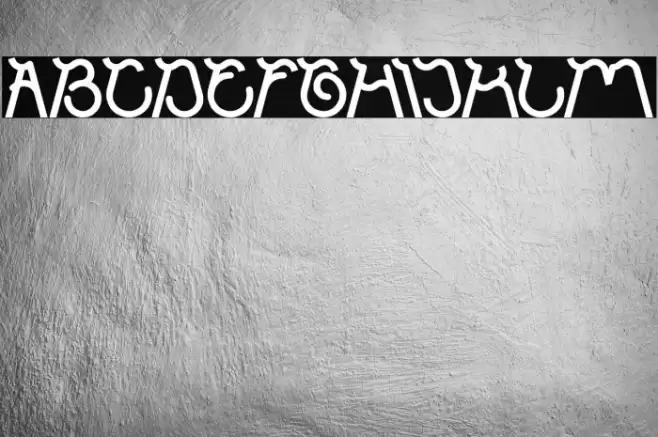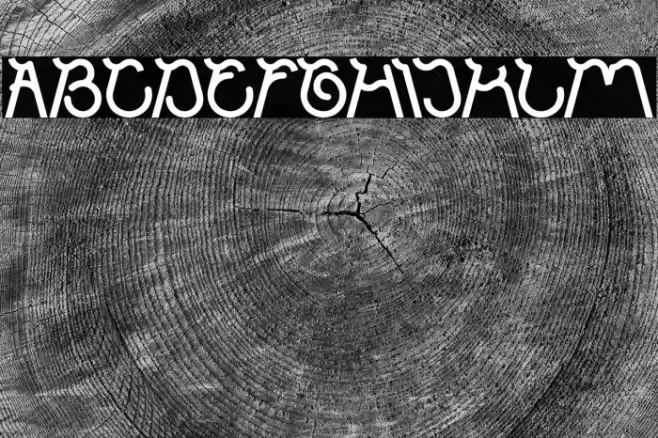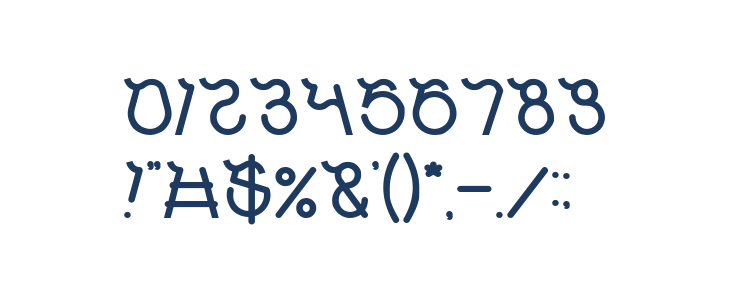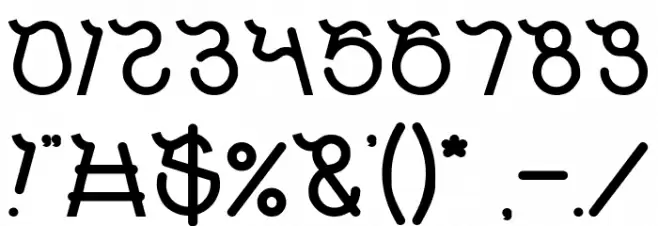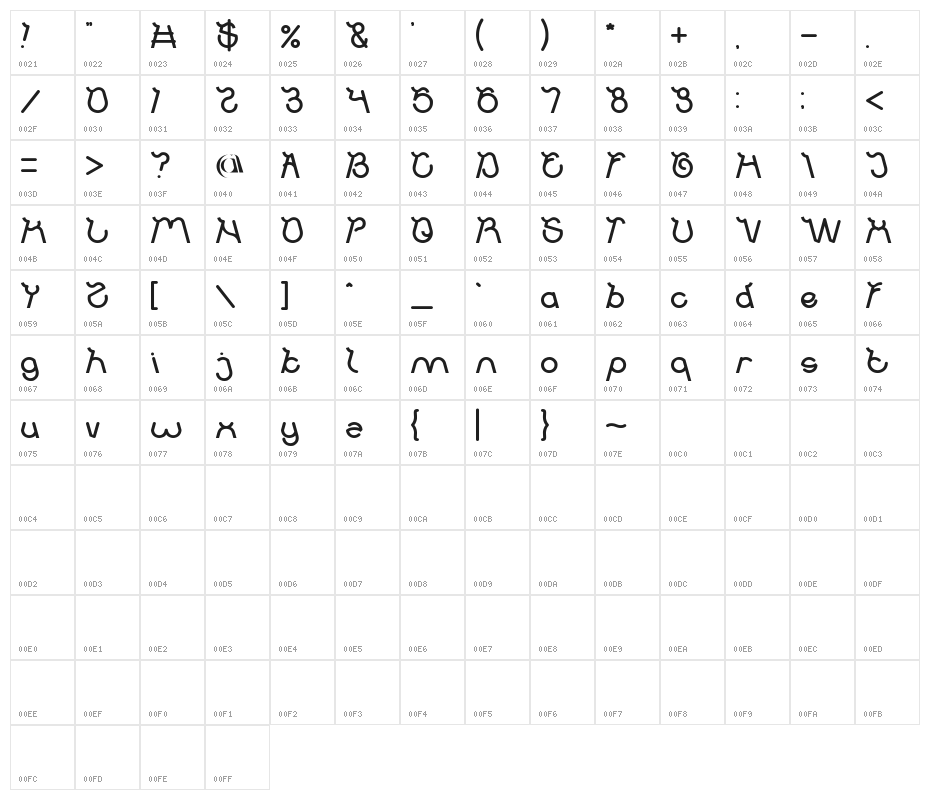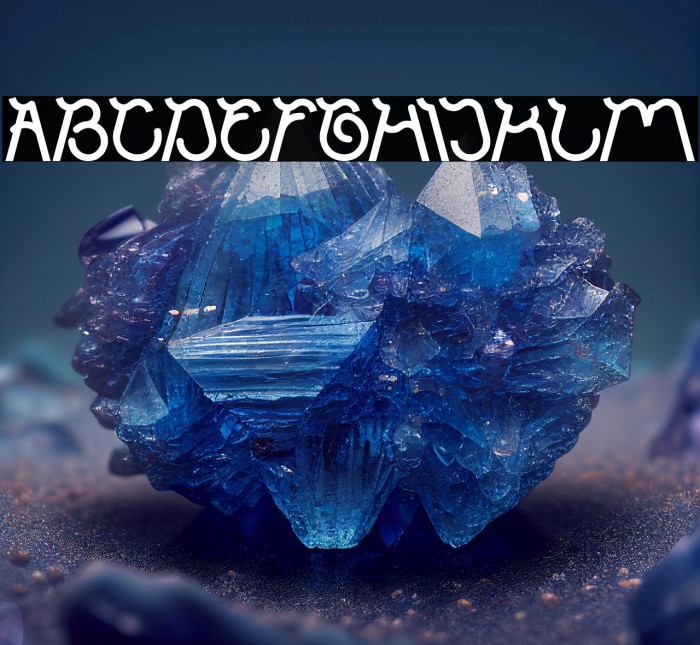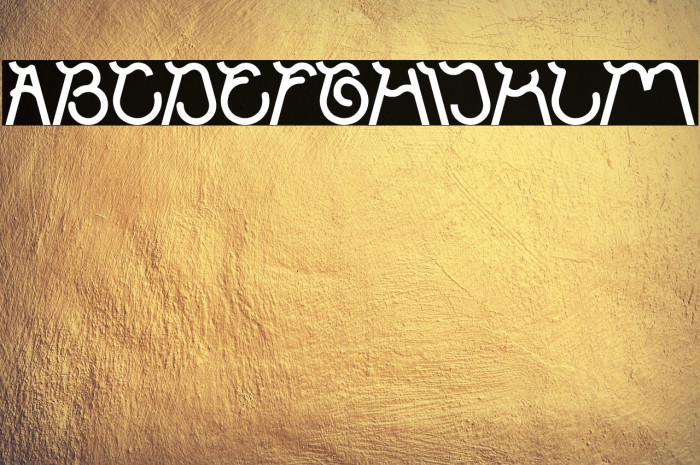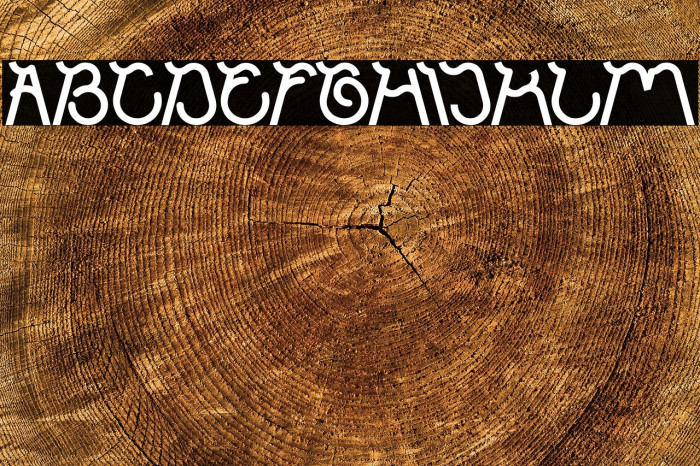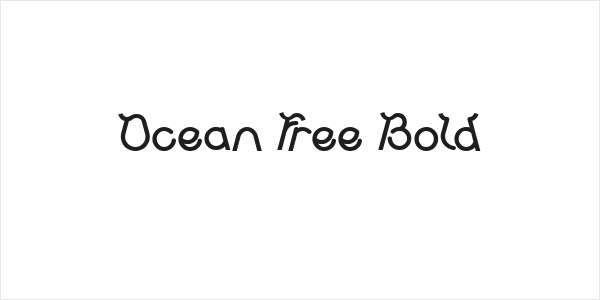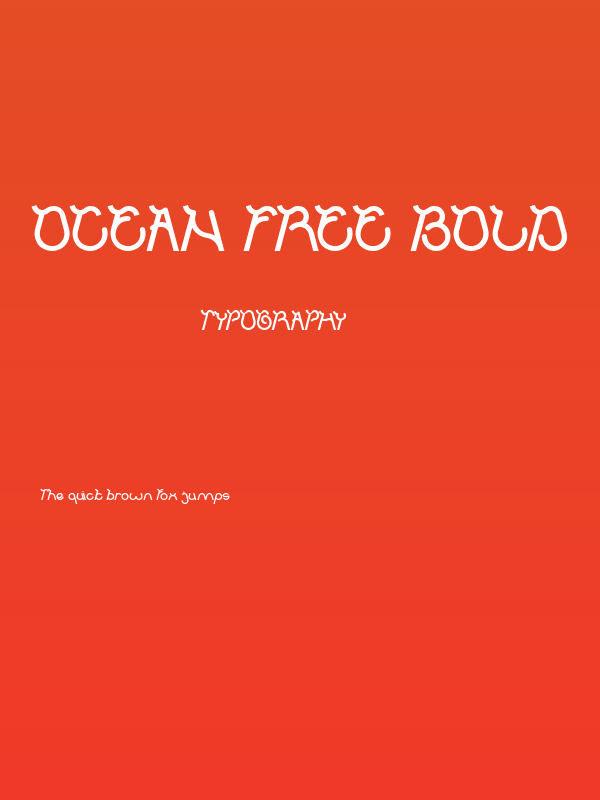
Ocean Free Bold Font
Ocean Free Bold Description
This font features a unique and playful design with a bold and curvy style. The characters are crafted with a whimsical touch, incorporating loops and swirls that give it a lively and dynamic appearance. The uppercase letters are particularly distinctive, with some characters like 'G' and 'Q' having a spiral element. The lowercase letters maintain the playful theme, with a consistent stroke width throughout. Numbers and special characters are designed to match the overall aesthetic, ensuring a cohesive look. This font stands out with its artistic flair, making it suitable for creative and informal projects.
A bold, playful font with curvy, whimsical characters and a lively style from Uncategorized fonts.
- Font: Ocean Free Bold
- Proposed Projects: Ideal for children's books, playful branding, creative posters, and artistic invitations.
- Overall Style: Playful, Artistic
- Use Case: Headlines, Logos, Creative Projects